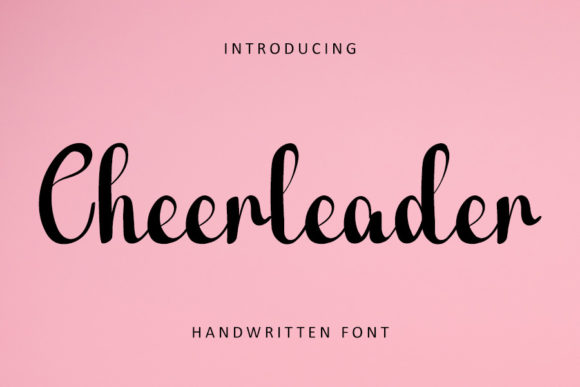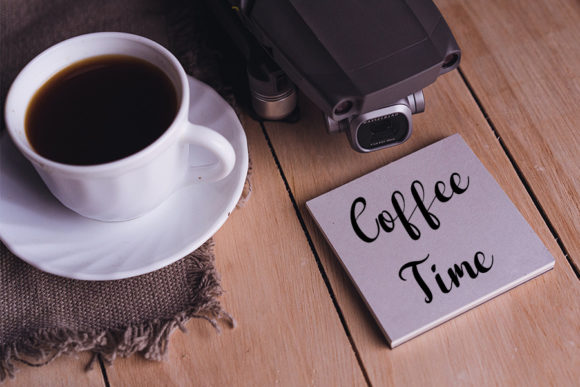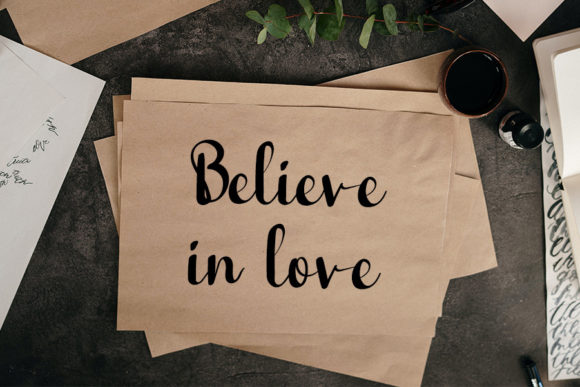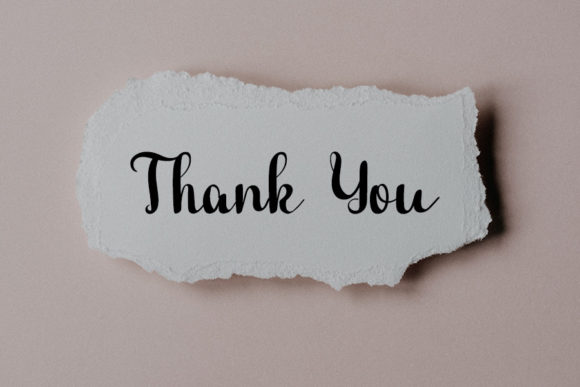
Cheerleader Font
Cheerleader is a trendy handwritten font with a contemporary atmosphere and impeccable form, inspired by a timeless classic calligraphy. It will add elegance and class to any of your design projects. This font can be used to write various kinds of products according to the aspect of each need.